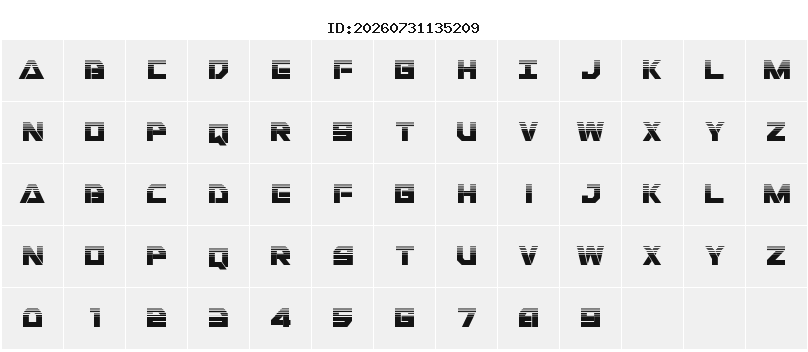
• Font Name: Liberty Island Half-Tone
Liberty Island Half-Tone.ttf is a modern, elegant sans-serif font designed for ultimate readability and visual harmony. Perfect for branding, headlines, web design, and print materials.